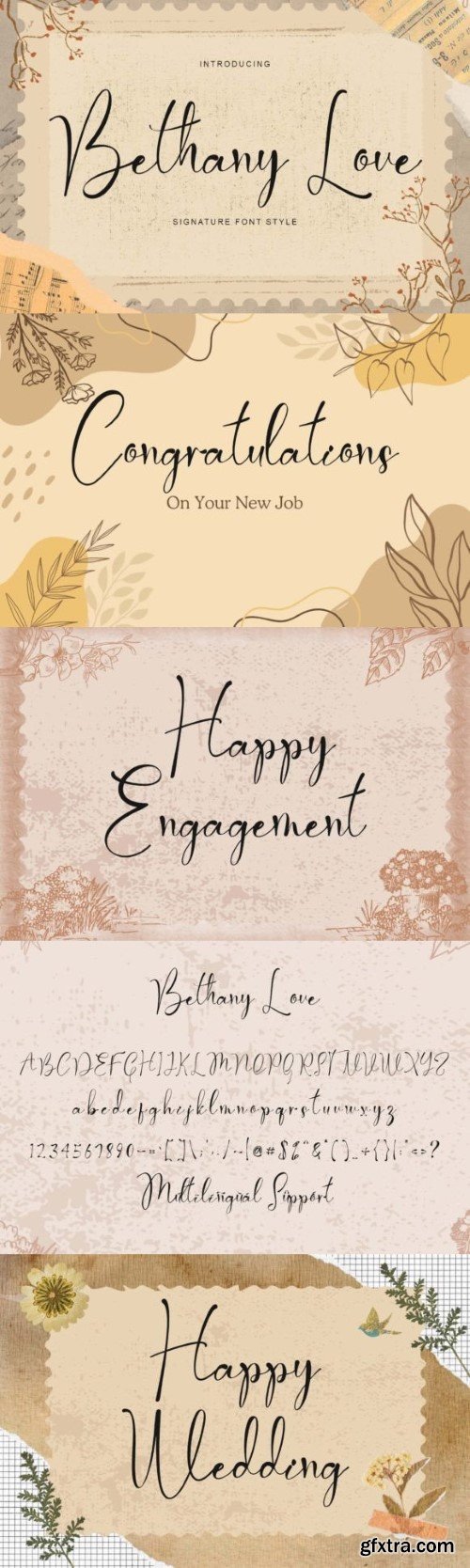
贝斯纳·洛夫字体
Bethany Love is a fresh, stylish handwritten script font that radiates elegance and charm. Its graceful strokes and organic flow evoke a sense of romance and sophistication, making it ideal for projects seeking a touch of refined beauty. Transform your designs with Bethany Love’s timeless and captivating aesthetic.